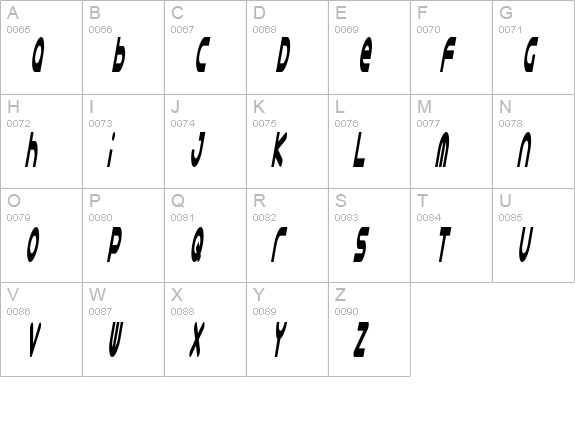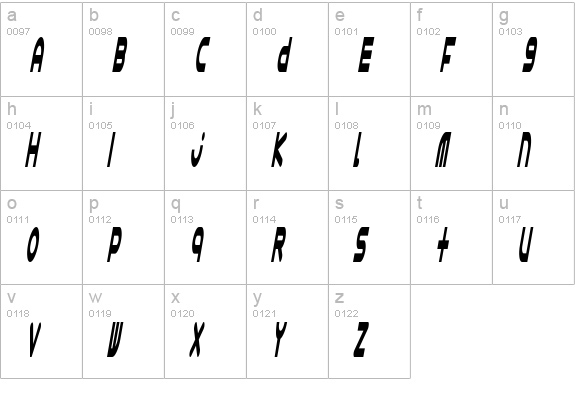
Astro 868 font is a sleek and modern typeface that exudes sophistication and elegance. With its clean lines and futuristic design, this font is perfect for creating eye-catching designs that demand attention. Whether you're working on a branding project, a website, or a poster, Astro 868 will bring a touch of style and sophistication to your work. The best part? Astro 868 font is completely free to download at FontsMarket.com. This means you can start using this stunning font in your projects right away, without having to worry about any licensing fees or restrictions. So why wait? Head over to FontsMarket.com now and download Astro 868 font to elevate your designs to the next level.